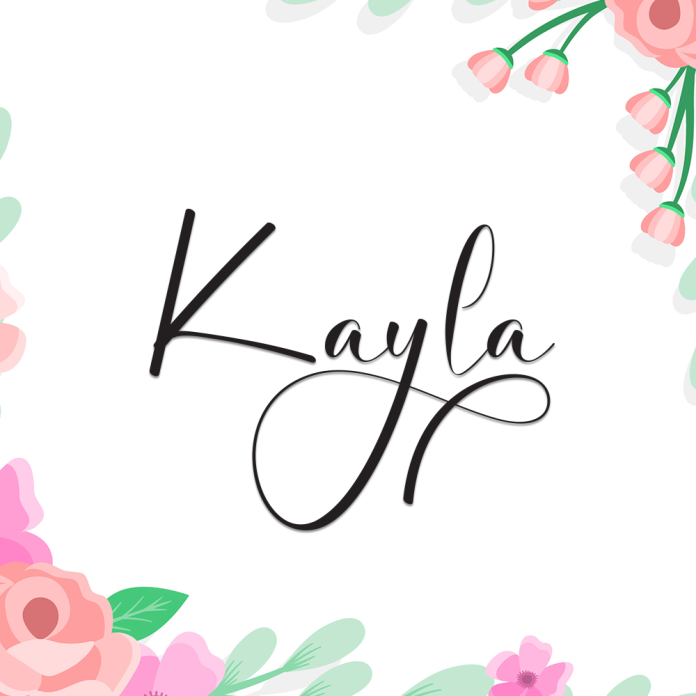
Kayla is a graceful and flowing handwriting font that captures the beauty of natural penmanship. With its smooth curves and delicate strokes, it adds a personal and sophisticated touch to any project.
Handwriting style with elegant, fluid lines
Ideal for invitations, logos, personal branding, and wedding designs
Stylish uppercase and lowercase characters
Includes numerals and punctuation
Bring a handwritten elegance to your designs with the soft and classy charm of Kayla.